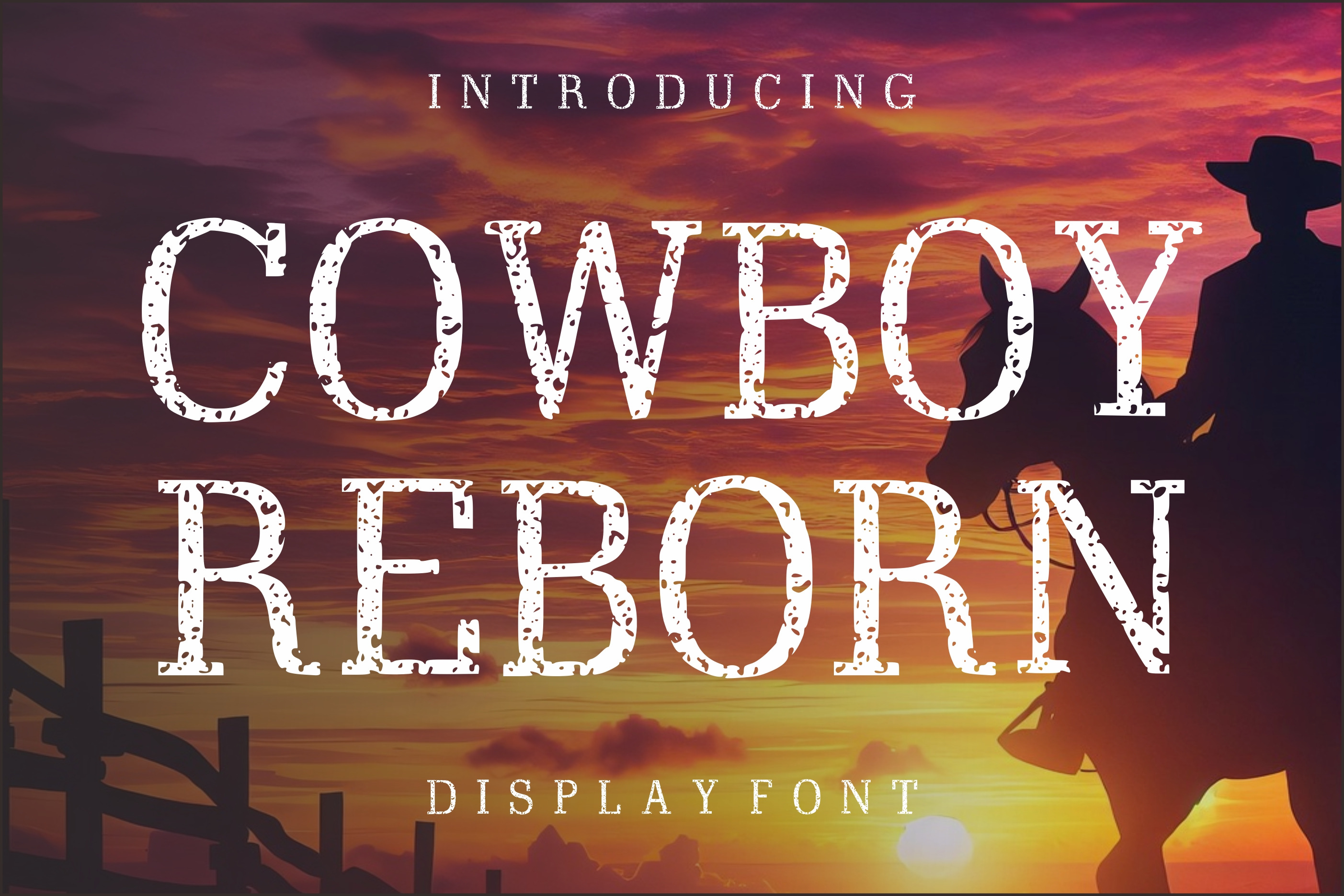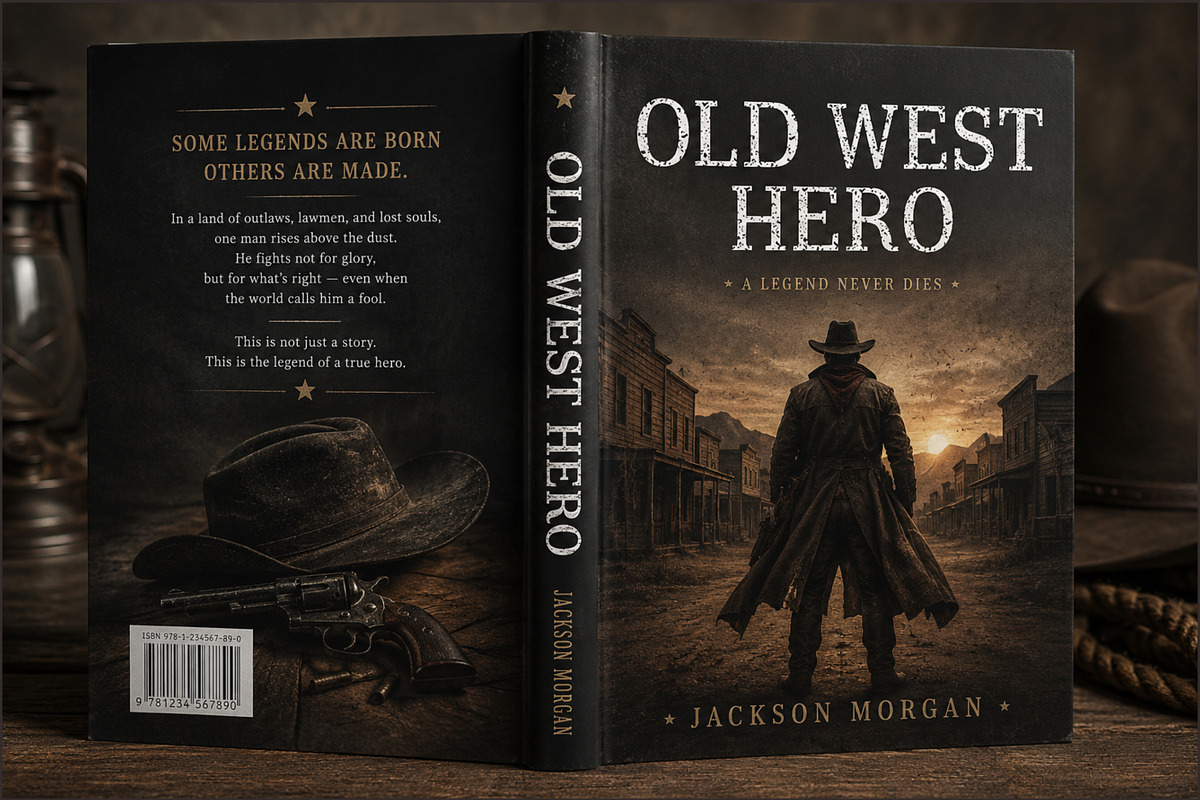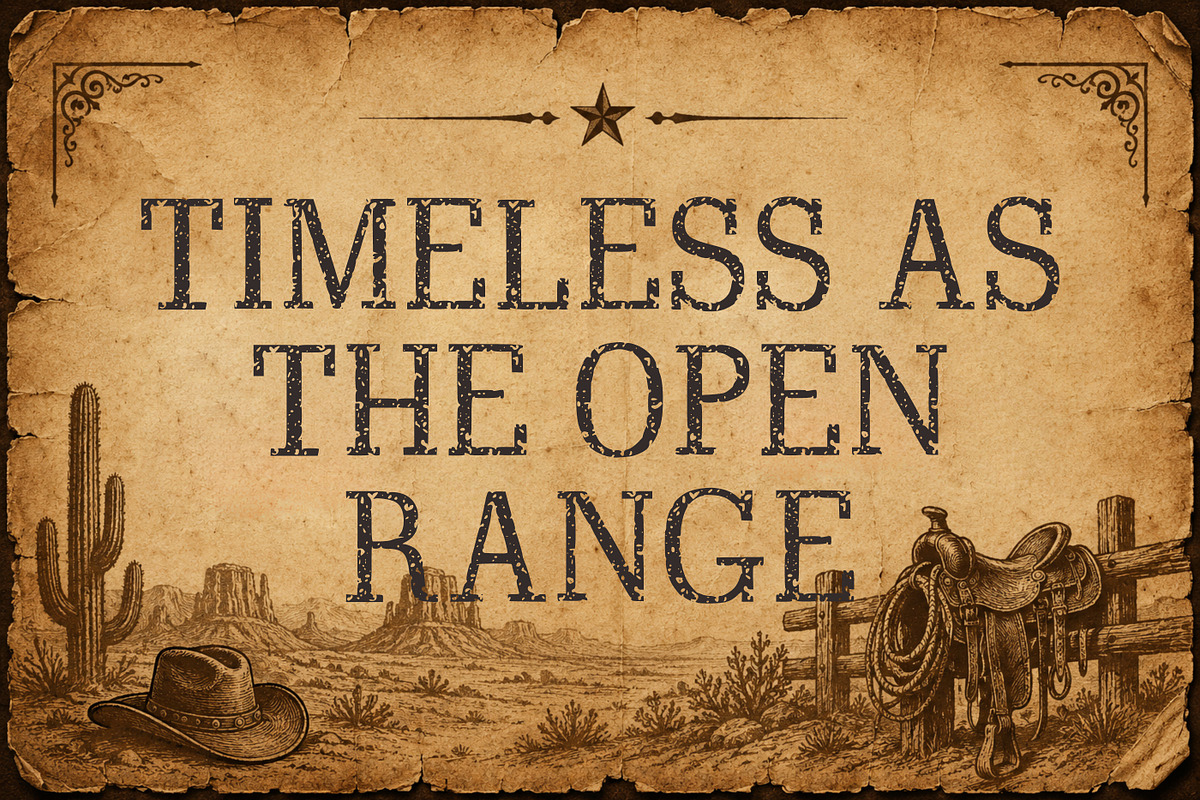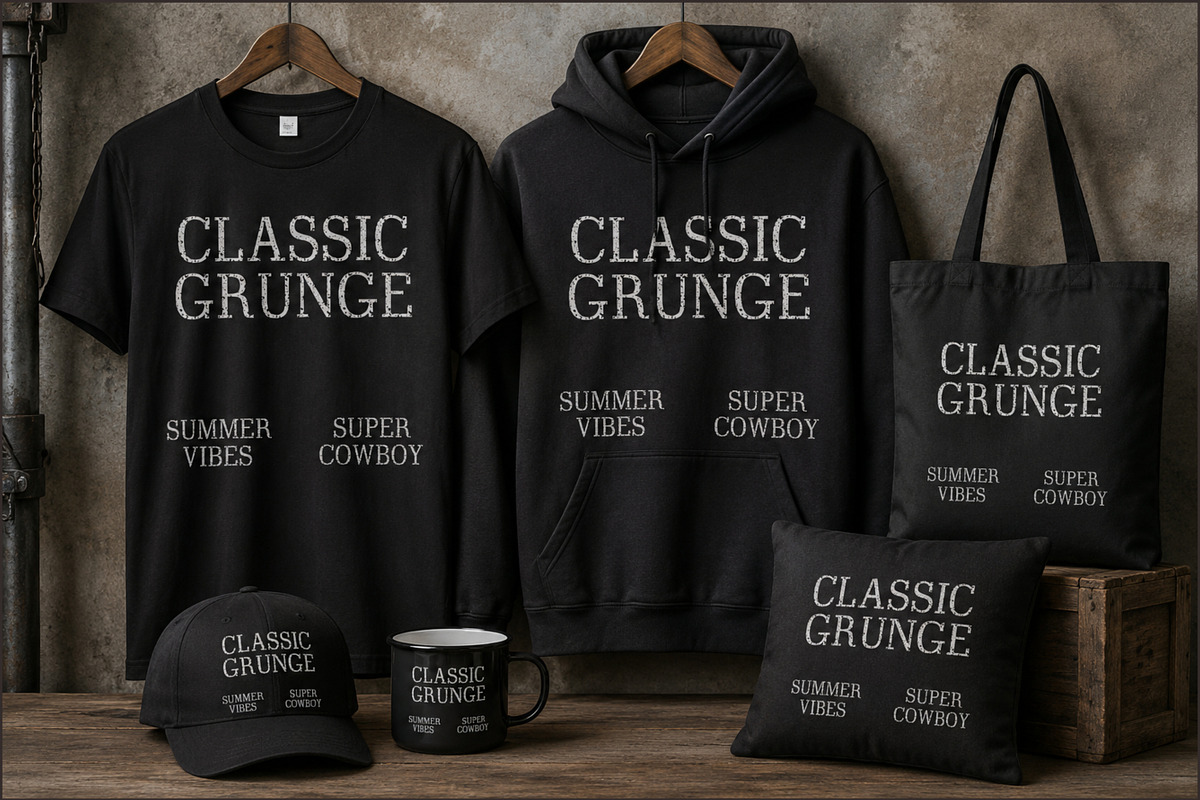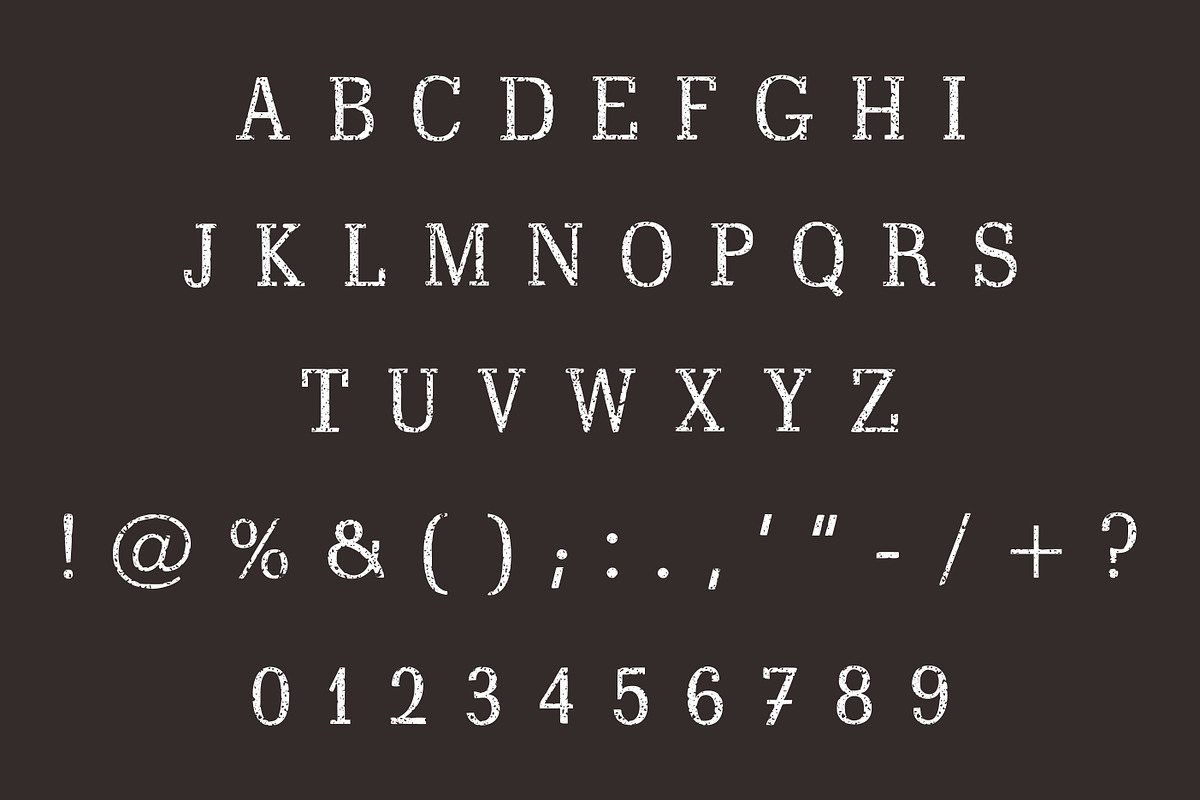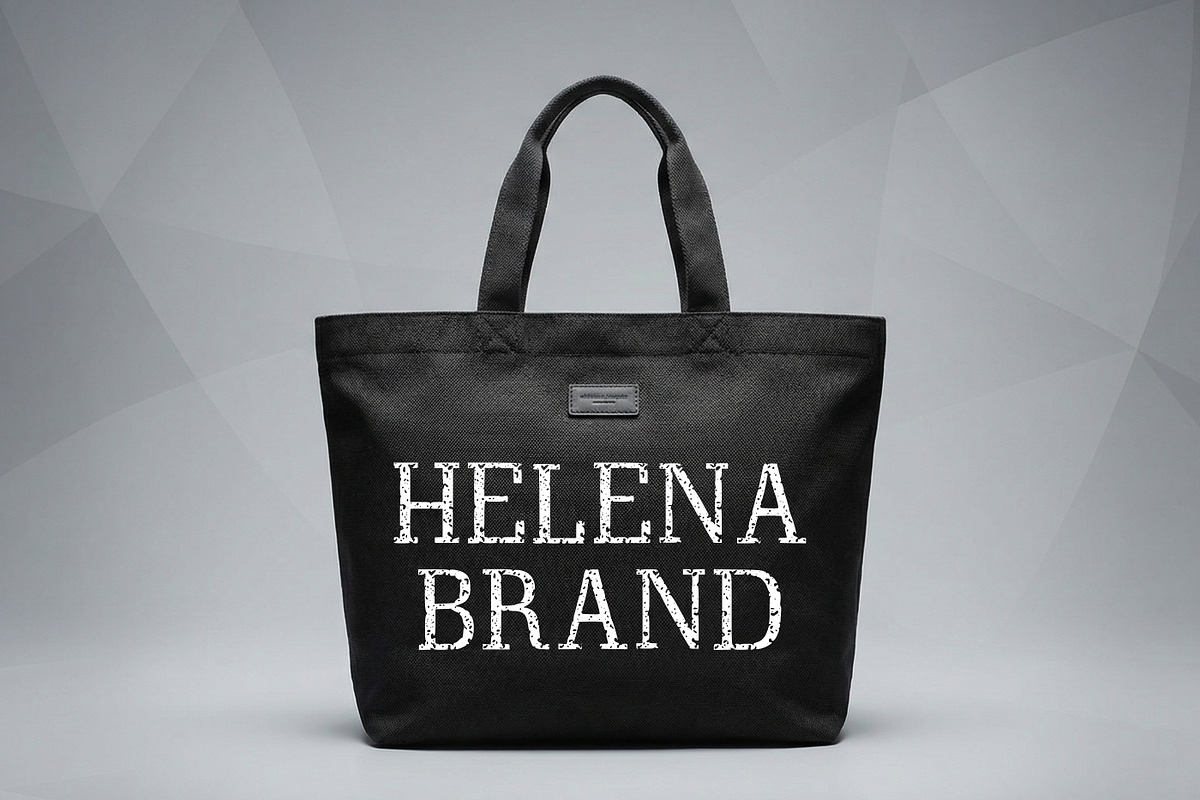
Cowboy Reborn - Western Vintage Font
Cowboy Reborn is a vintage western display font inspired by classic cowboy typography, rugged desert landscapes, and old saloon signage. Featuring a distressed grunge texture, this font brings an authentic Wild West feel to your designs.
Perfect for t-shirt designs, posters, book covers, branding, logos, merchandise, and retro-themed projects. Old West Hero captures the spirit of adventure, freedom, and the legendary cowboy era.
Add a strong western identity to your creative work with this unique and timeless typeface.